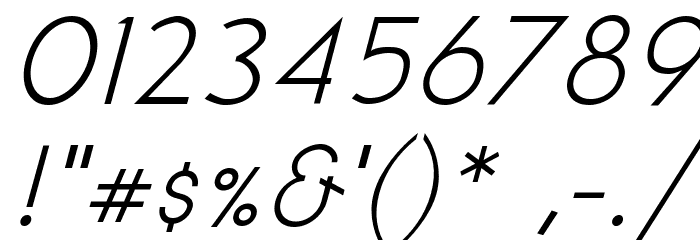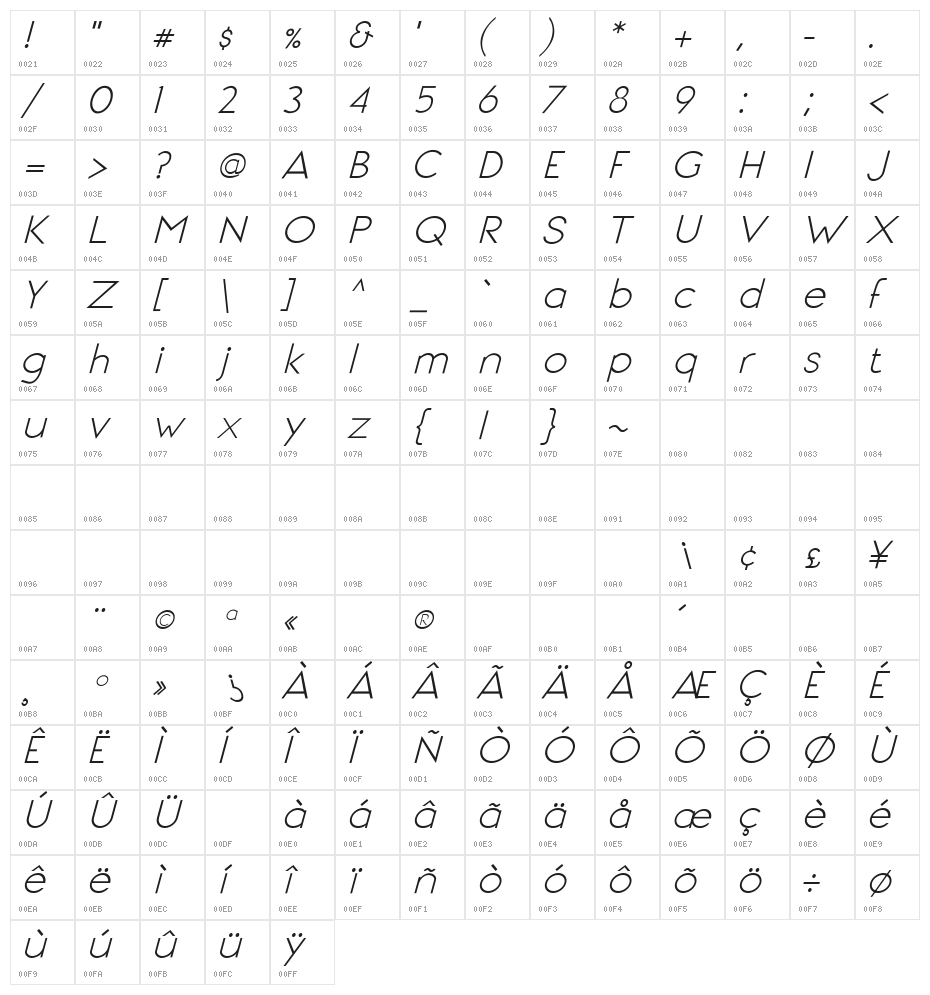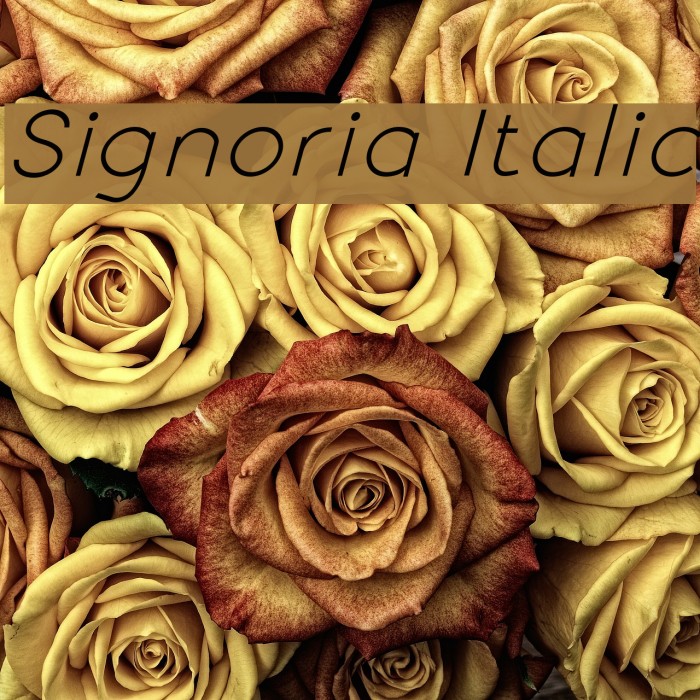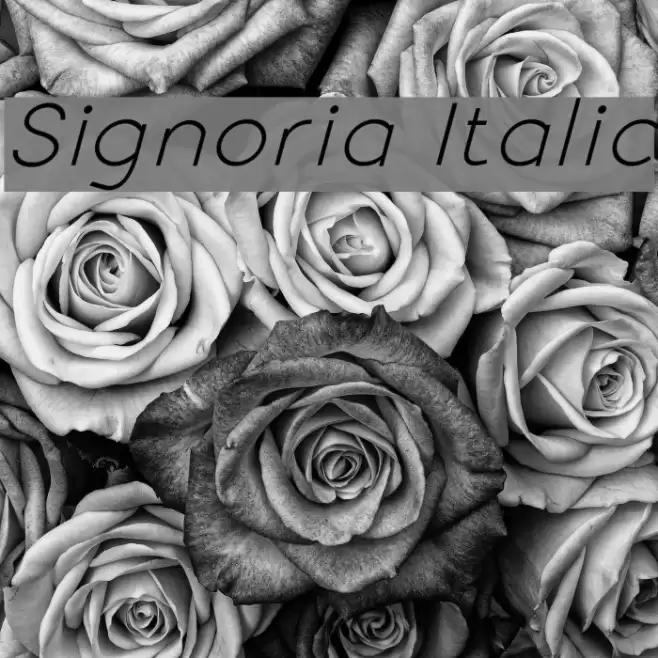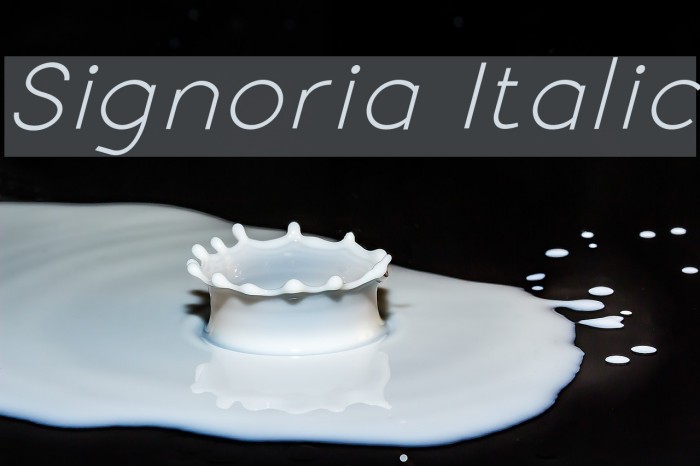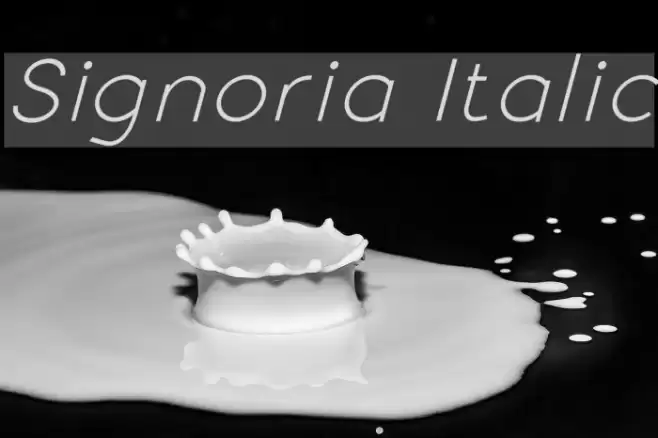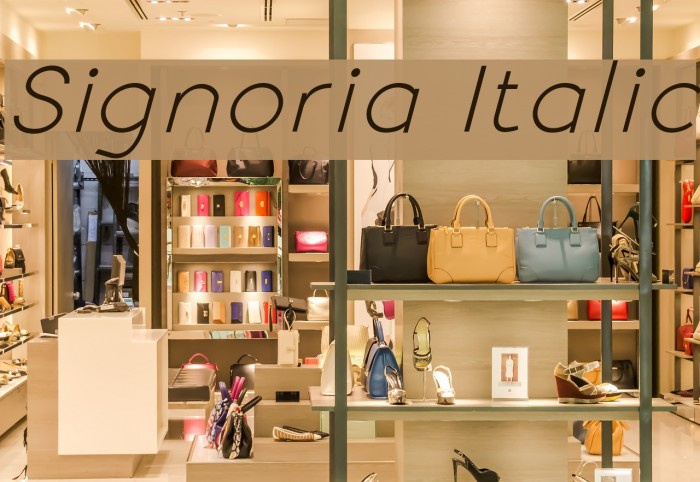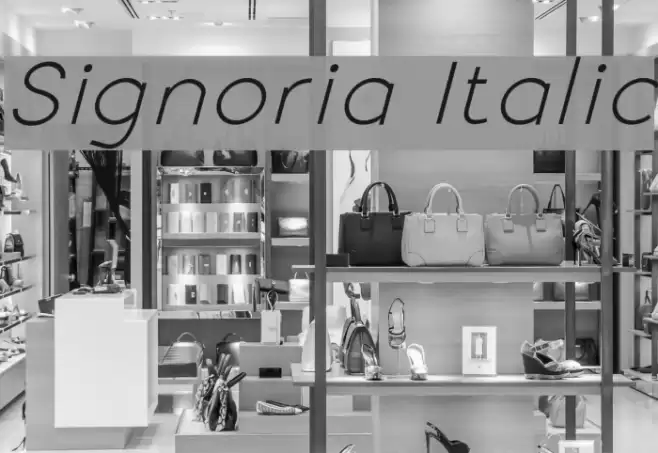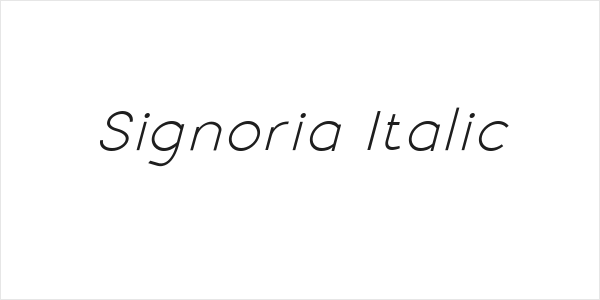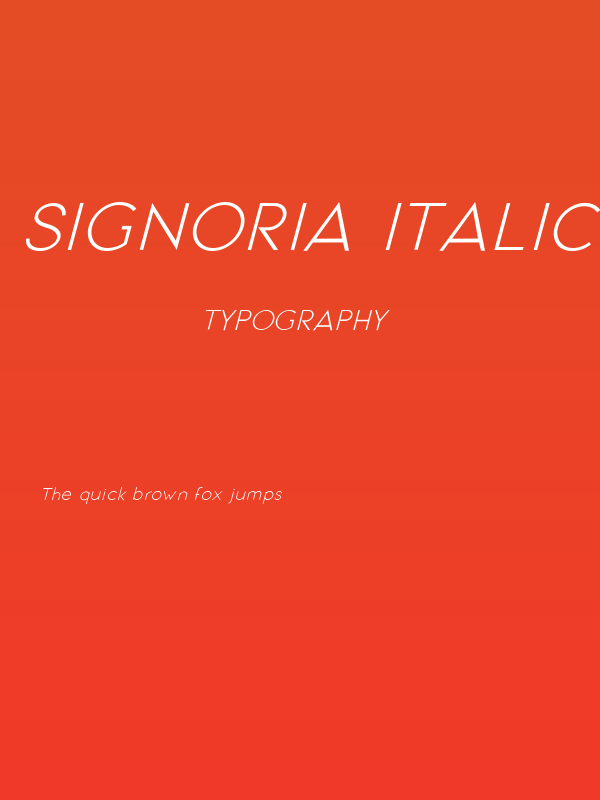
Signoria Italic Font
Signoria Italic Description
This font exhibits a sleek and modern italic style, characterized by its smooth curves and elegant slant. The uppercase letters are tall and slightly narrow, giving a sophisticated appearance, while the lowercase letters maintain a consistent flow with rounded edges. The numerals are clean and easy to read, complementing the overall aesthetic. Special characters are well-integrated, maintaining the font's cohesive look. The design is minimalistic yet expressive, making it versatile for various applications.
| Use Case | Headlines, Logos, Editorial design |
| Proposed Projects | Ideal for branding, editorial design, fashion magazines, and elegant invitations. |